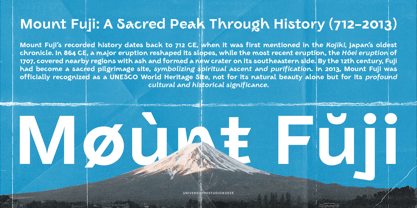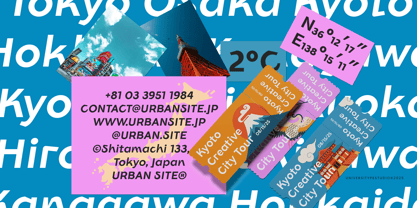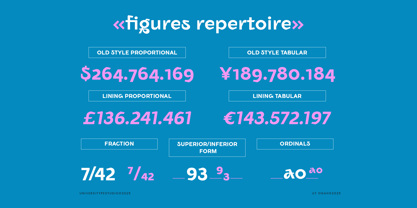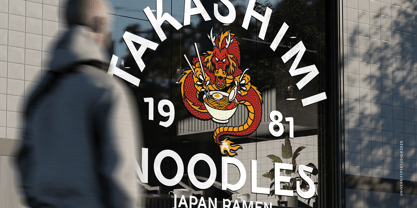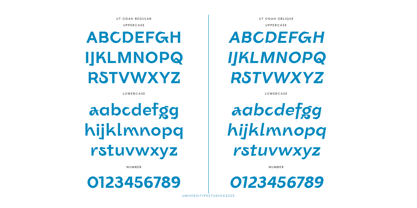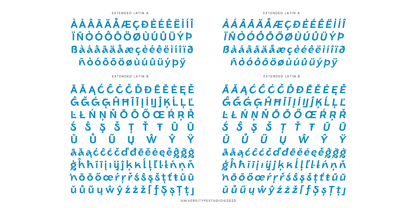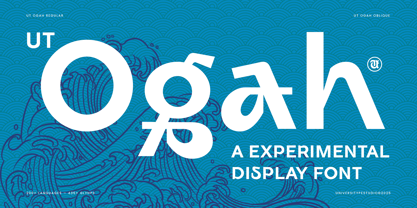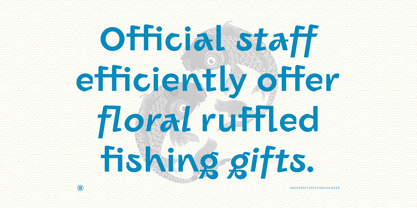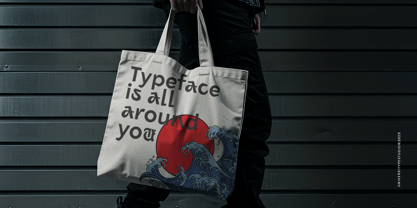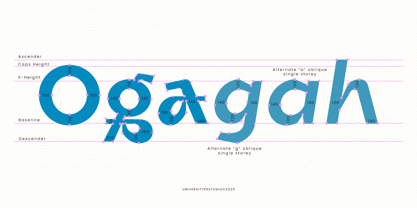
UT Ogah
The UT Ogah Font Family was designed by Muh. Aswar, Andi Syahdang and published by Universitype. UT Ogah contains 2 styles and family package options. More about this family
UT Ogah is a bold experimental display typeface designed for strong visual impact. It blends rigid geometric structures with fluid, broken forms, creating letter shapes that feel expressive, energetic, and intentionally unconventional. Subtle gaps and soft terminals give the font a distinctive rhythm, making it ideal for designs that need attitude and presence. Built to perform best at larger sizes, Ogah shines in headlines, branding, posters, apparel graphics, and contemporary digital layouts. The included Regular and Oblique styles allow designers to shift between stability and motion while keeping a consistent typographic character. What’s included Regular & Oblique styles 435+ glyphs Extended Latin language support OpenType features: ligatures, stylistic alternates, ordinals, numerators, denominators, superscripts, subscripts Multiple figure styles: Old Style, Lining, Proportional, Tabular